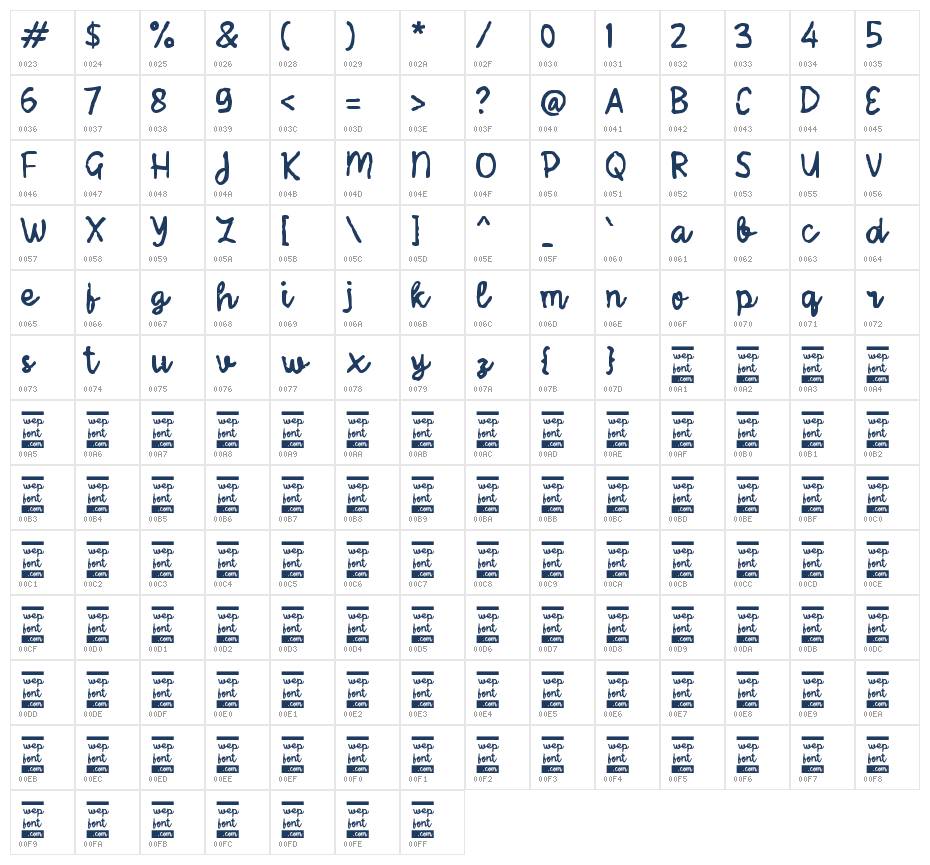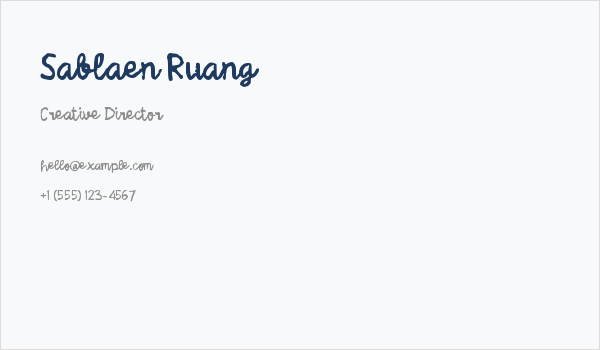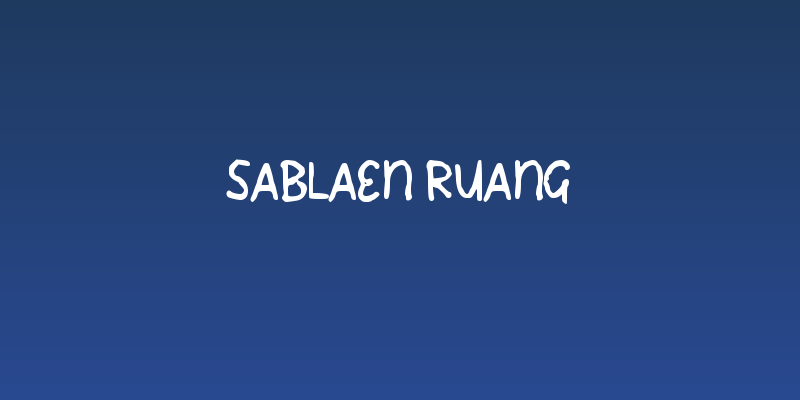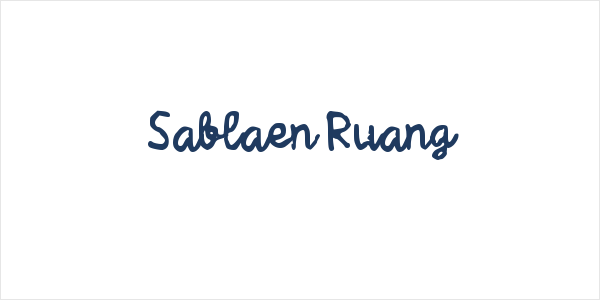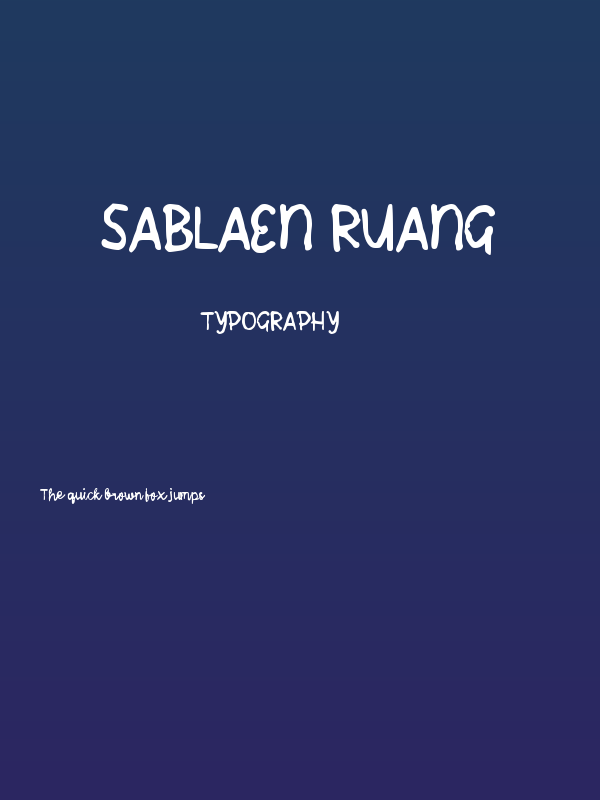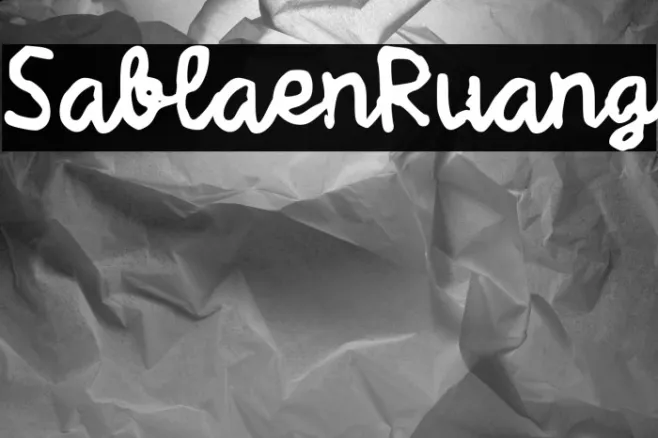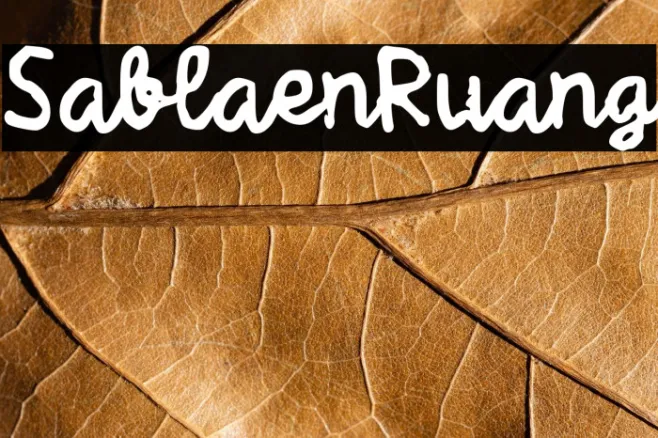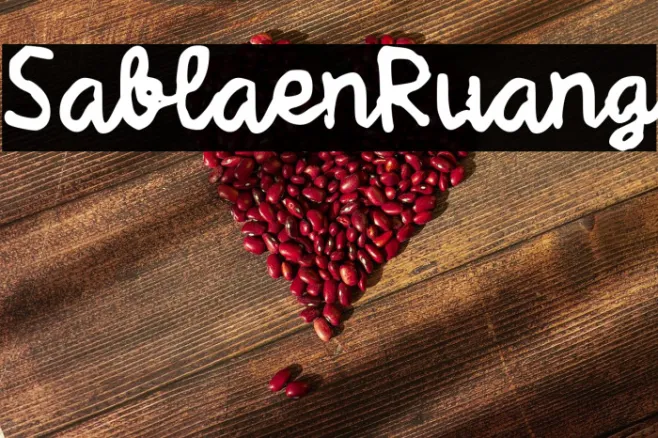
Sablaen Ruang Font
Sablaen Ruang Description
A playful, handwritten style font with irregular, casual strokes that resemble a marker or brush pen. It features both uppercase and lowercase letters, numbers, and common punctuation marks.
| Overall Style | Casual, Playful, Handwritten |
| Use Case | Headlines, Body text, Logos, Invitations, Greeting cards |